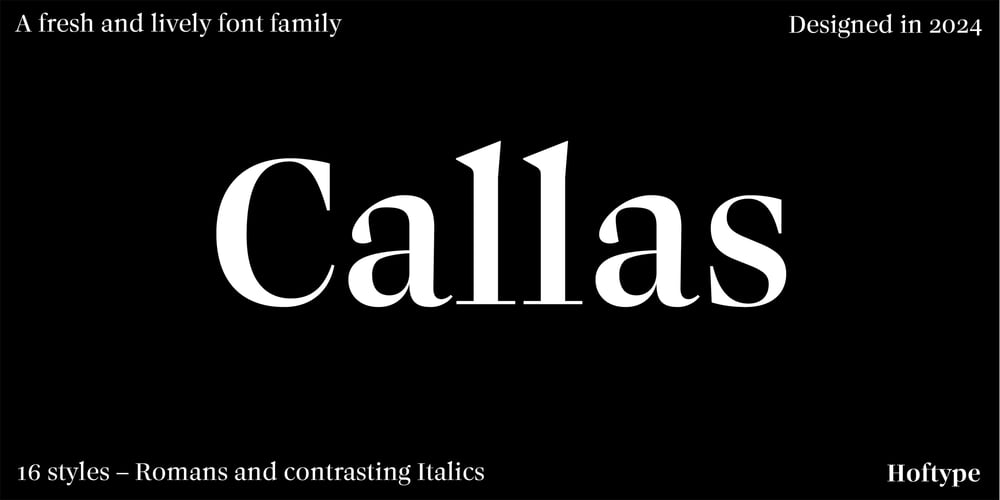
Callas Font Family was designed by Dieter Hofrichter and published by Hoftype. Callas contains 16 styles and family package options. Callas is a high contrast typeface with a crisp and clean look – fresh, and lively!It unites the functionality of the classic Antiqua with the elegance of didonesque types.It appears distinguished – with a touch of extravagance.